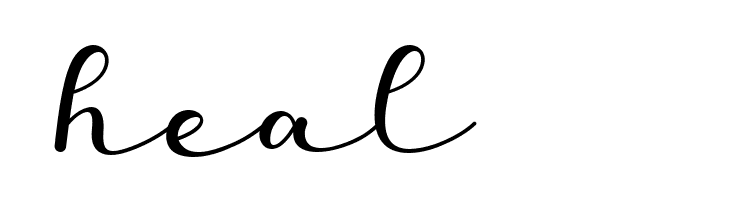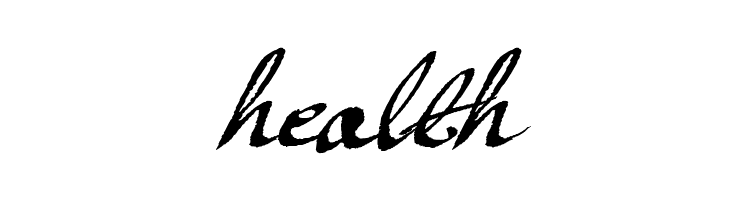
A whimsical, romantic script font with decorative heart accents.
A charming script font with elegant, flowing characters and medium contrast.
A cursive, handwritten-style font with elegant, flowing characters.
A dynamic and expressive script font with fluid, cursive strokes.
A playful and whimsical script font with flowing, interconnected letters.
An elegant, flowing script font with intricate loops and high contrast.
A whimsical and playful font with curly, looping strokes and decorative flair.